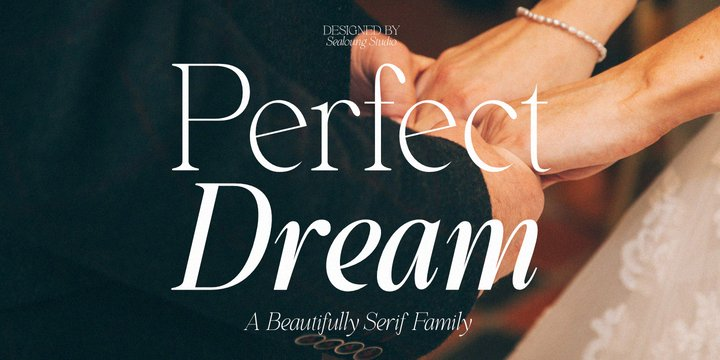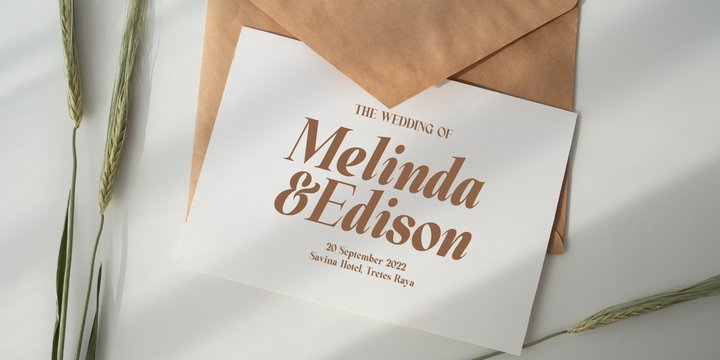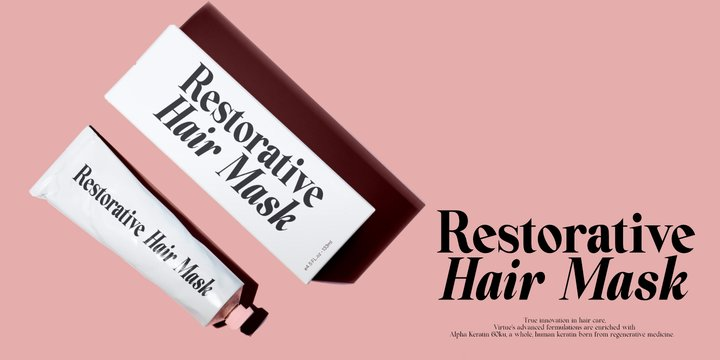
Perfect Dream Font Family
Perfect Dream Font FamilyIntroducing Perfect Dream – a new serif with all the nostalgic vibes!
A classy eighties magazine-inspired serif – with a complementary italic version 🙂 Comes in two normal and condensed versions, mix them together to create an interesting effect.
Perfect Dream is a beautiful nostalgic upper and lower case typography that looks amazing in both large and small settings as display and body text.
I love combining regular and italics, either all in one word (as in the Missfits sample) or in body text!
Don’t forget to use all caps as well in your blending and matching – this adds contrast and impact to your type design.